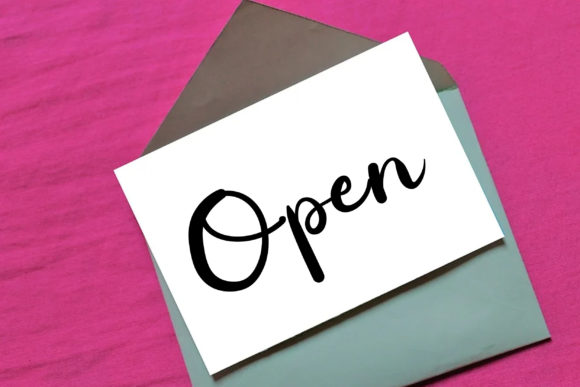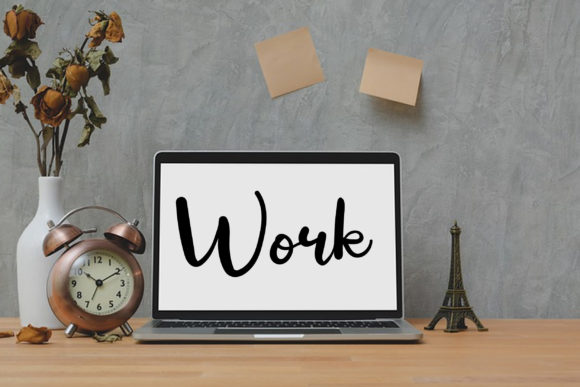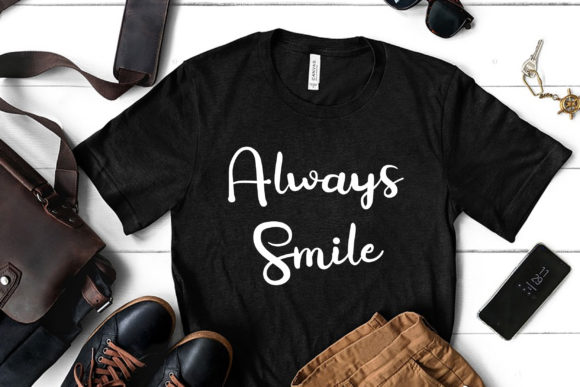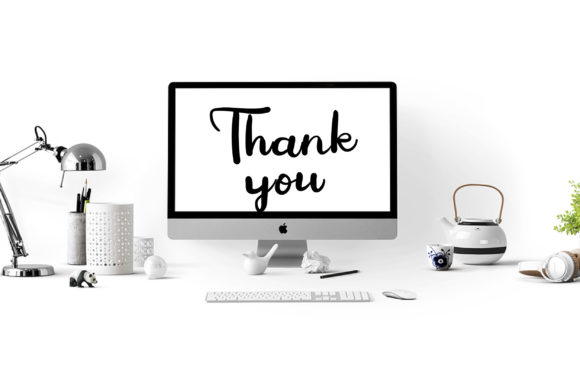
Hello Still Font
**Hello Still Font: A Fresh and Beautiful Design Companion for Every Occasion**
*Hello Still* emerges as a font that encapsulates freshness and beauty, making it the ideal choice for an array of design purposes. Whether you’re crafting YouTube banners, cover logo mockups, wedding invitations, ID cards, flyers, or engaging in creative crafts, *Hello Still* is the perfect accompaniment. Utilizing this font not only adds a touch of sophistication to your designs but also has the potential to propel your business forward, fostering progress and development.
Versatility is a hallmark of *Hello Still*. Tailored for diverse design applications, this font seamlessly adapts to the dynamic requirements of modern creativity. From making bold statements in YouTube banners to infusing refined elegance into wedding invitations, *Hello Still* effortlessly blends style and substance, ensuring that your projects stand out with grace and charm.
The font’s allure extends beyond aesthetics to its potential impact on business development. The fresh and beautiful design is crafted to captivate audiences, leaving a lasting and positive impression. Whether establishing a brand identity through cover logo mockups or conveying professionalism on ID cards, *Hello Still* becomes a visual ambassador for your business, contributing to its growth and progress.
*Simplicity* and *uniqueness* define the essence of *Hello Still*. Its clean lines and distinct design contribute to an overall aesthetic that is not only visually appealing but also easily understandable. Amidst the plethora of design elements, *Hello Still* distinguishes itself by offering a unique and memorable identity to your creations.
As you integrate *Hello Still* into your design arsenal, envision the transformative effect it can have on your projects. Each letter becomes a brushstroke of sophistication, and every curve adds to the font’s overall sense of freshness and beauty. Whether you’re an experienced designer or a DIY enthusiast, *Hello Still* serves as a reliable and stylish companion for all your creative endeavors.
Choose *Hello Still* to elevate your designs – from the dynamic impact of YouTube banners to the timeless elegance of wedding invitations. Witness how your business progresses and develops, leaving a trail of beautifully crafted visuals in its wake. Let *Hello Still* be the font that not only adds a touch of elegance to your designs but also becomes a catalyst for your creative and business success.